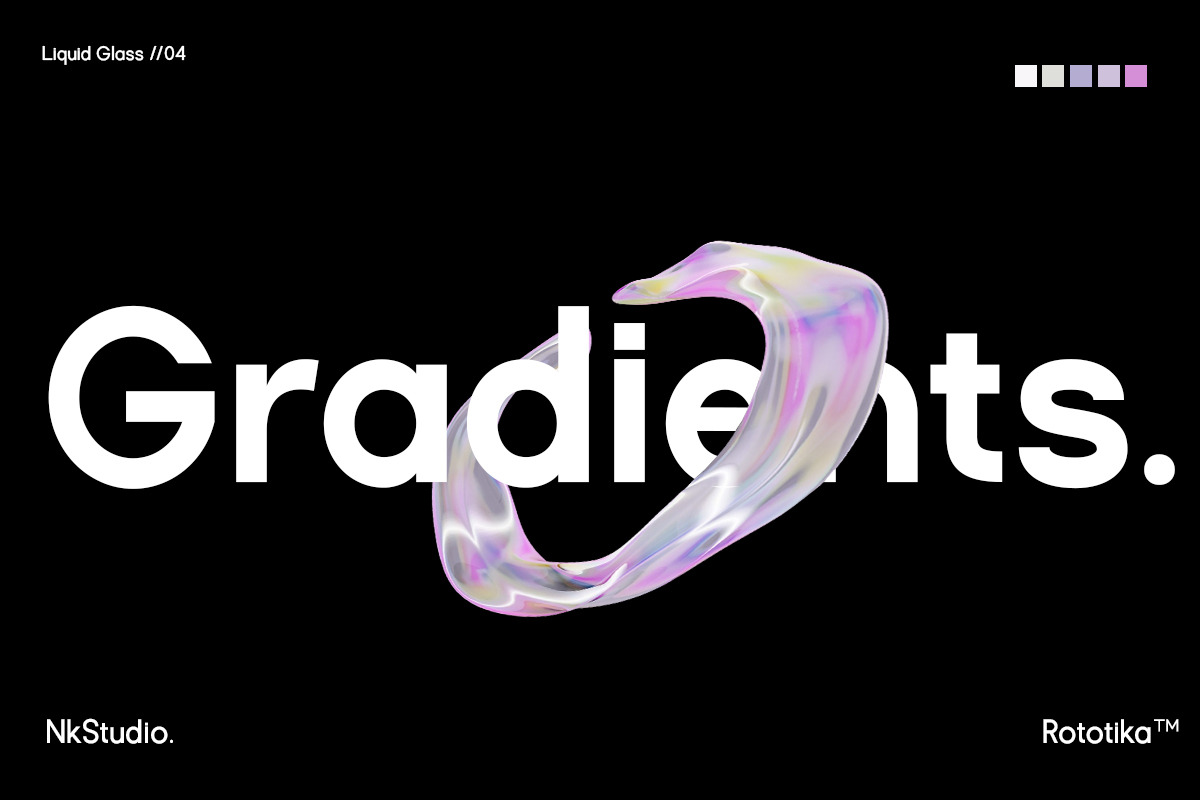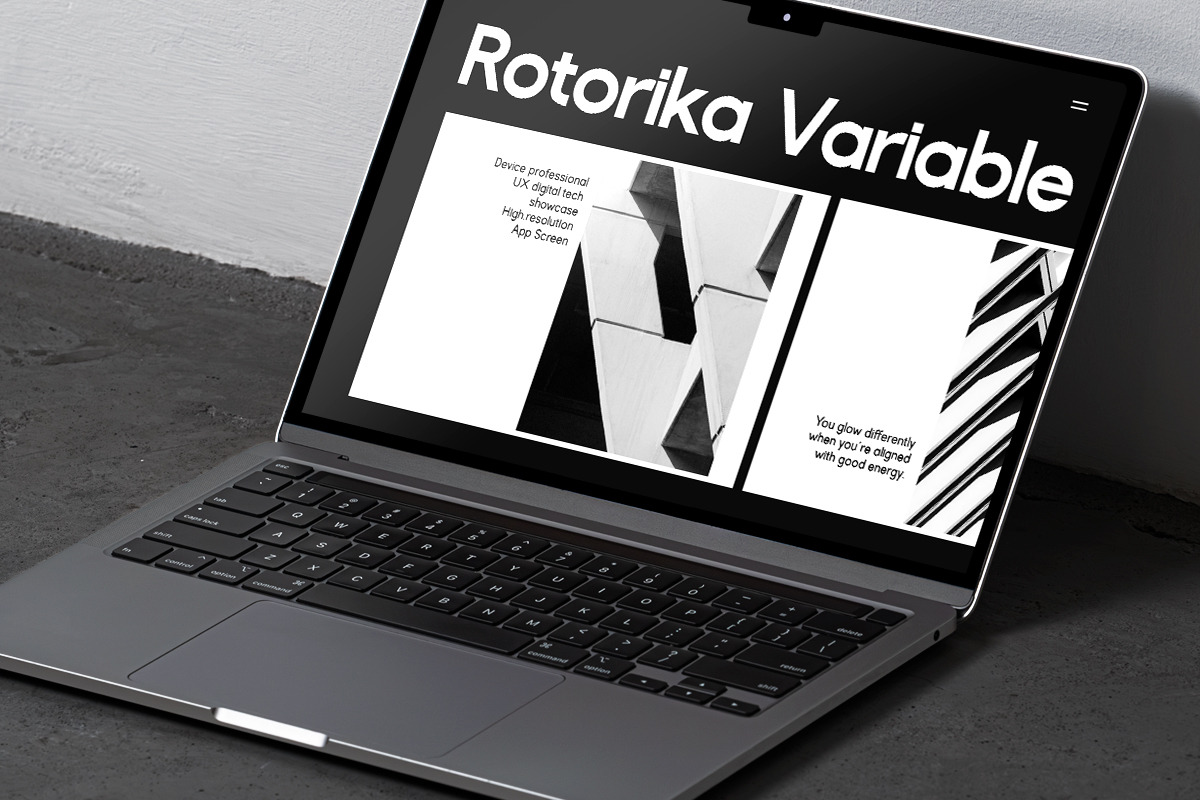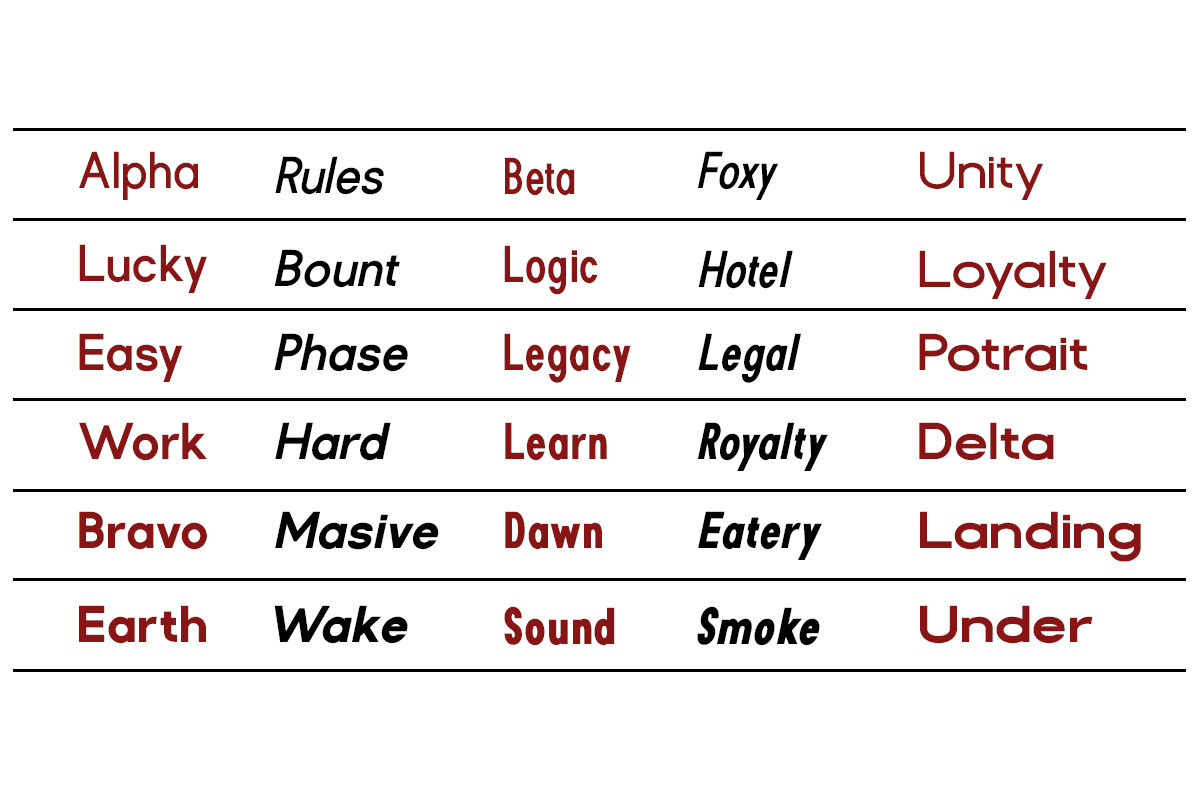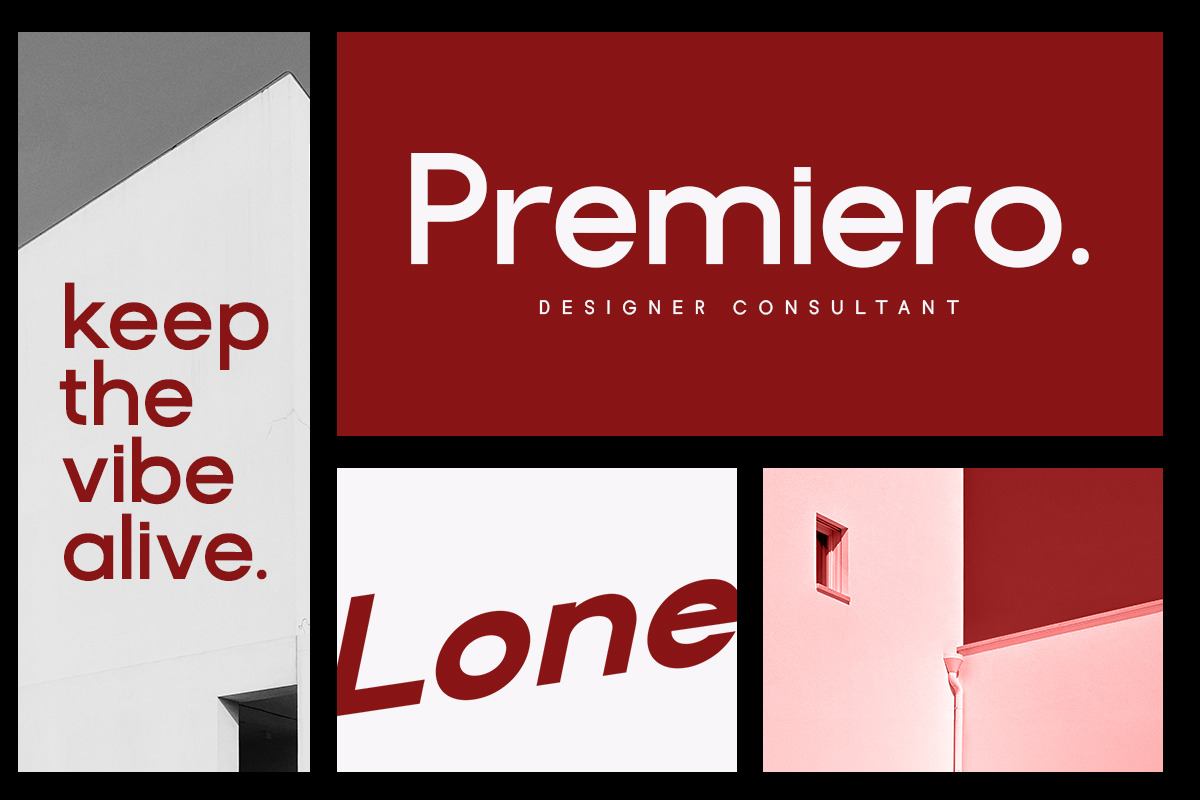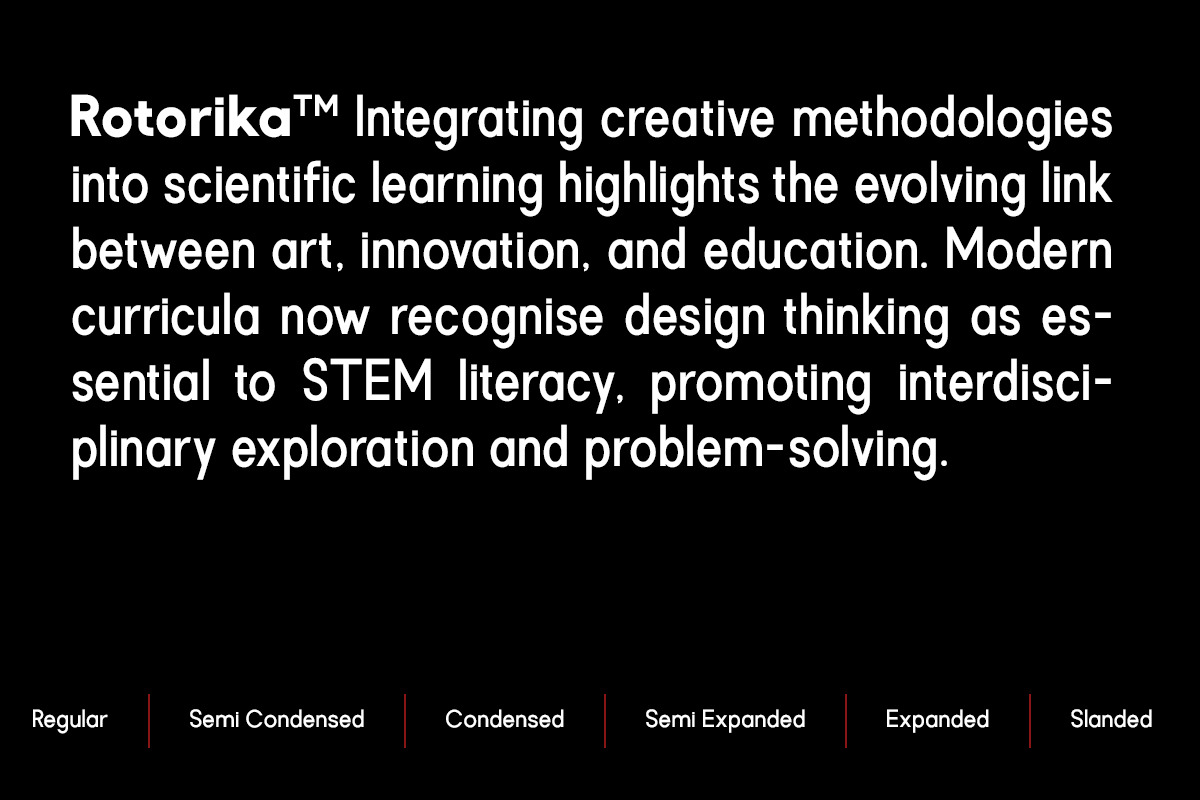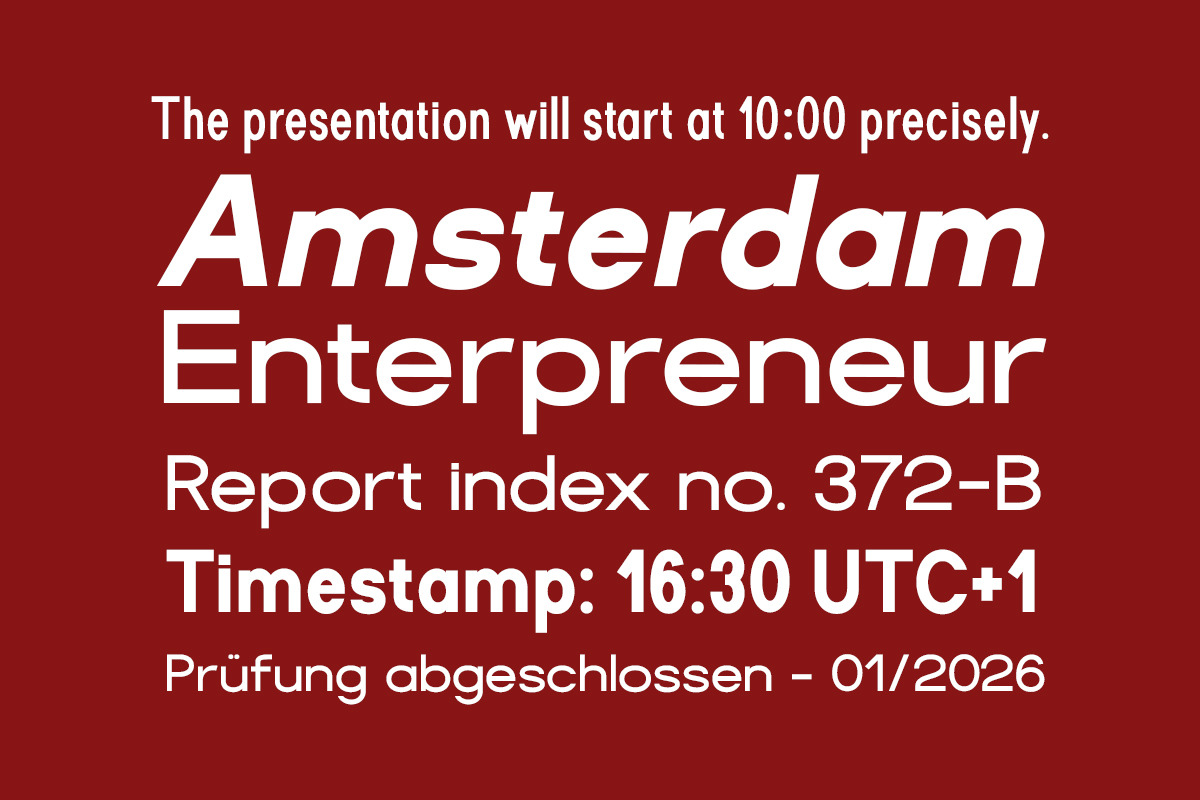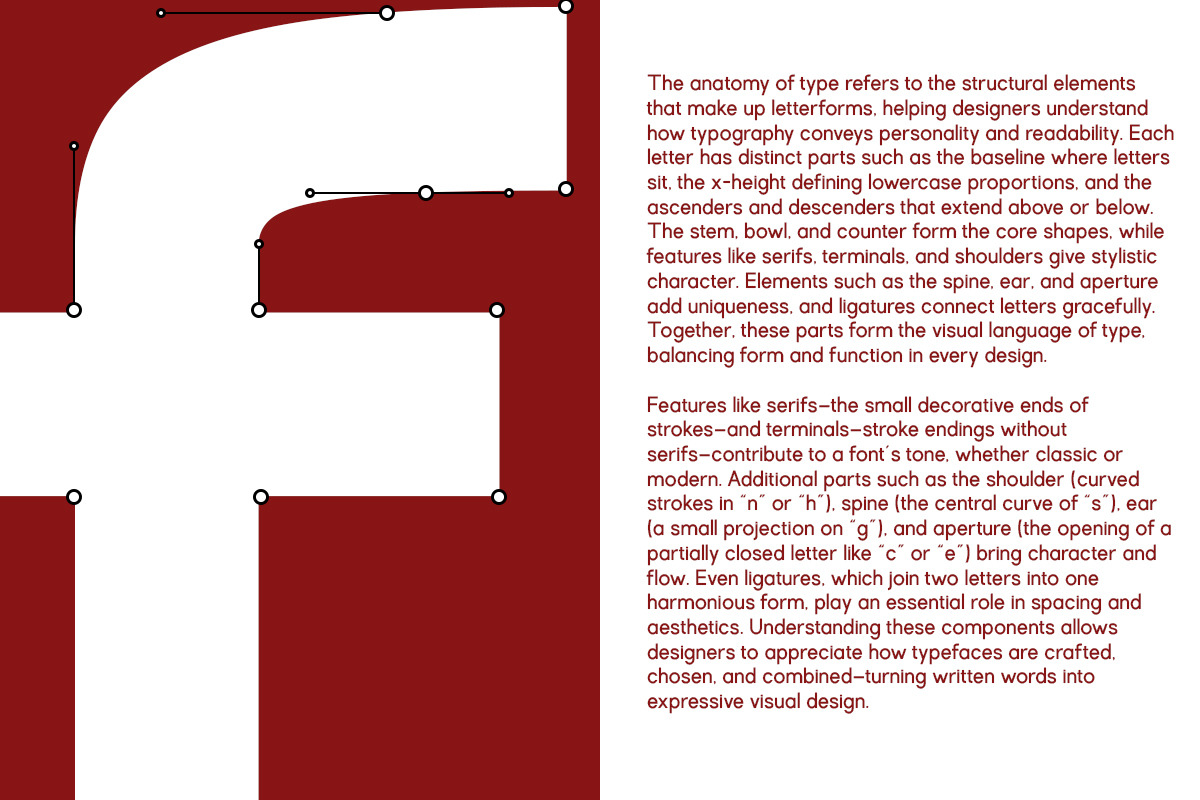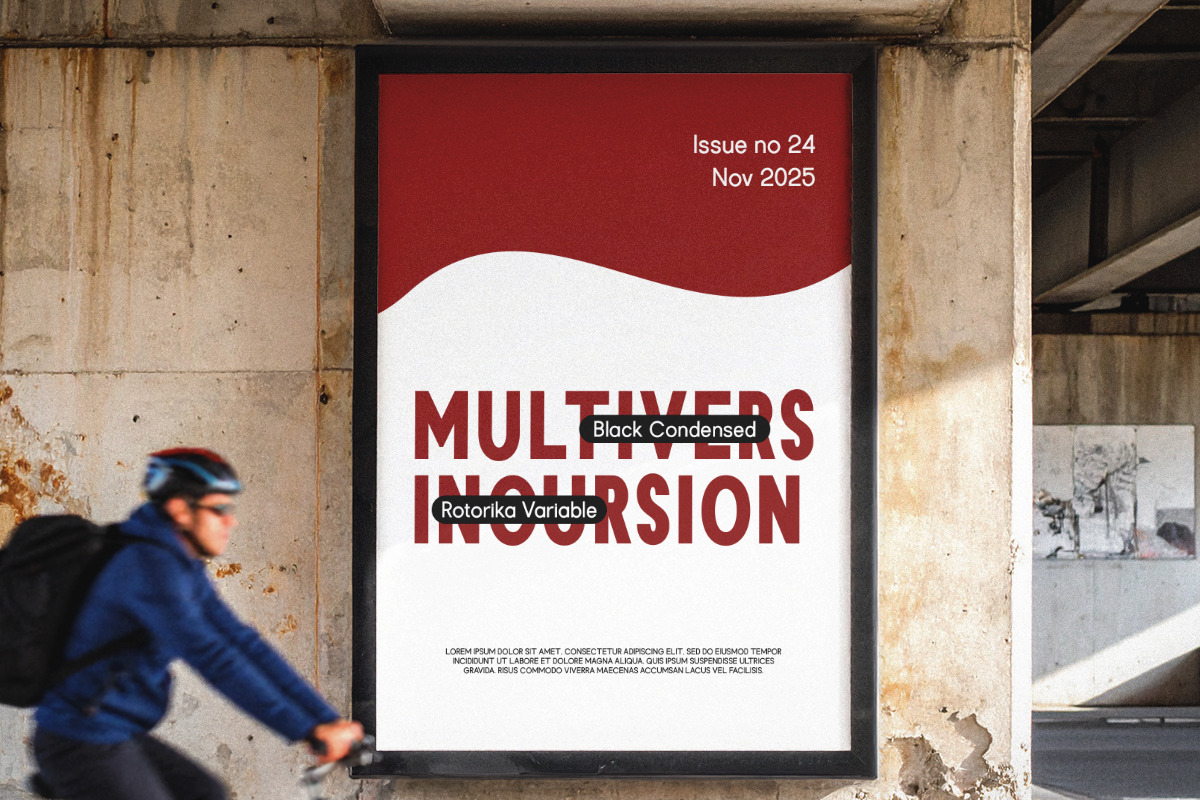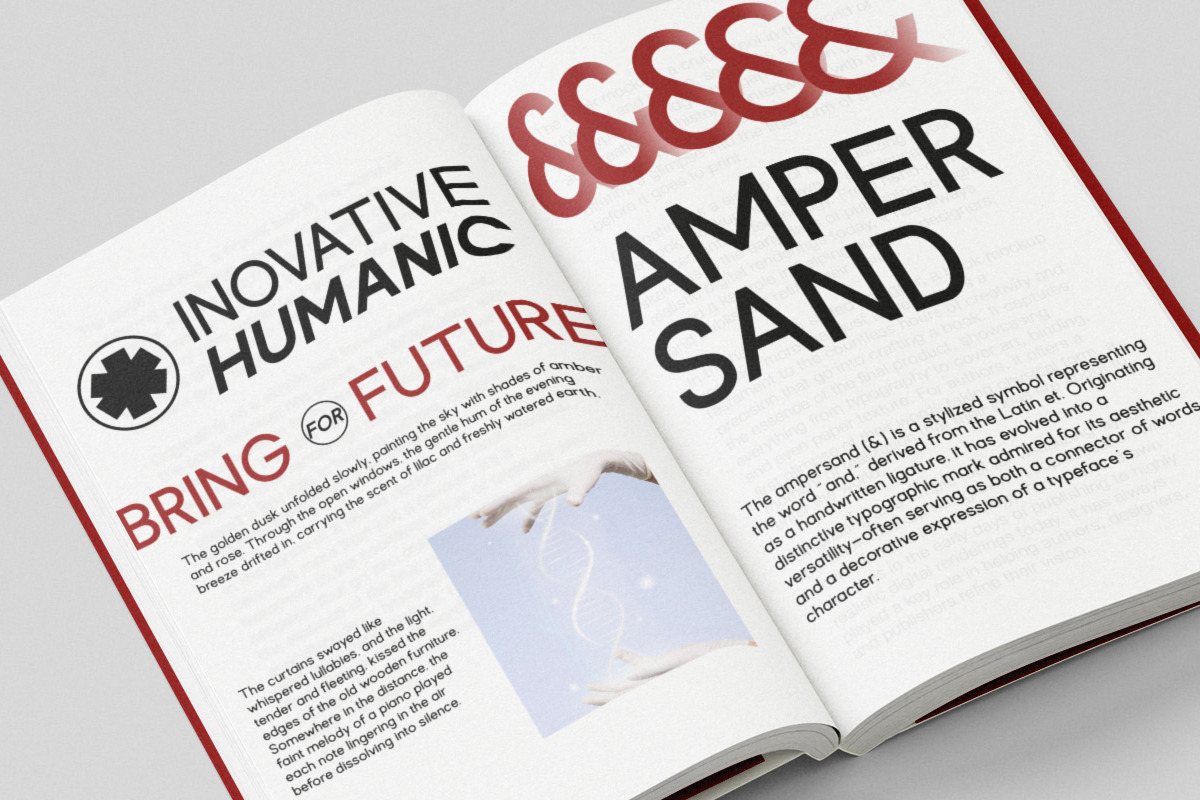
Rotorika
Introducing Rotorika
Rotorika is more than just typography; it's a system of expression. Designed with precision and flexibility, Rotorika brings a new level of typographic versatility, offering 60 structured styles that can adapt seamlessly to a variety of creative visions.
From Condensed to Expanded, Regular to Black, and even Slanted variations, Rotorika gives you complete control over tone, mood, and rhythm. Clean geometry and balanced proportions create a strong yet elegant look—perfect for branding, editorial design, logos, posters, and digital interfaces.
Every curve and pivot in Rotorika is designed to convey modern sophistication while maintaining exceptional readability. Whether you're building a minimalist identity or a bold campaign, Rotorika adapts effortlessly to suit your story.
60 variable styles (Bold, Wide, and Italic)
Modern geometric structure with a humanistic touch
Perfect for display and text use